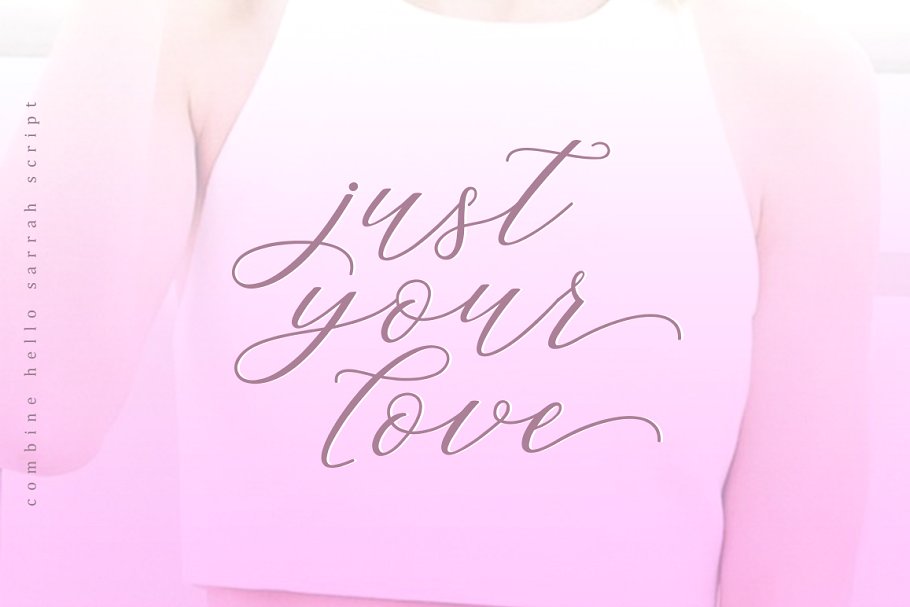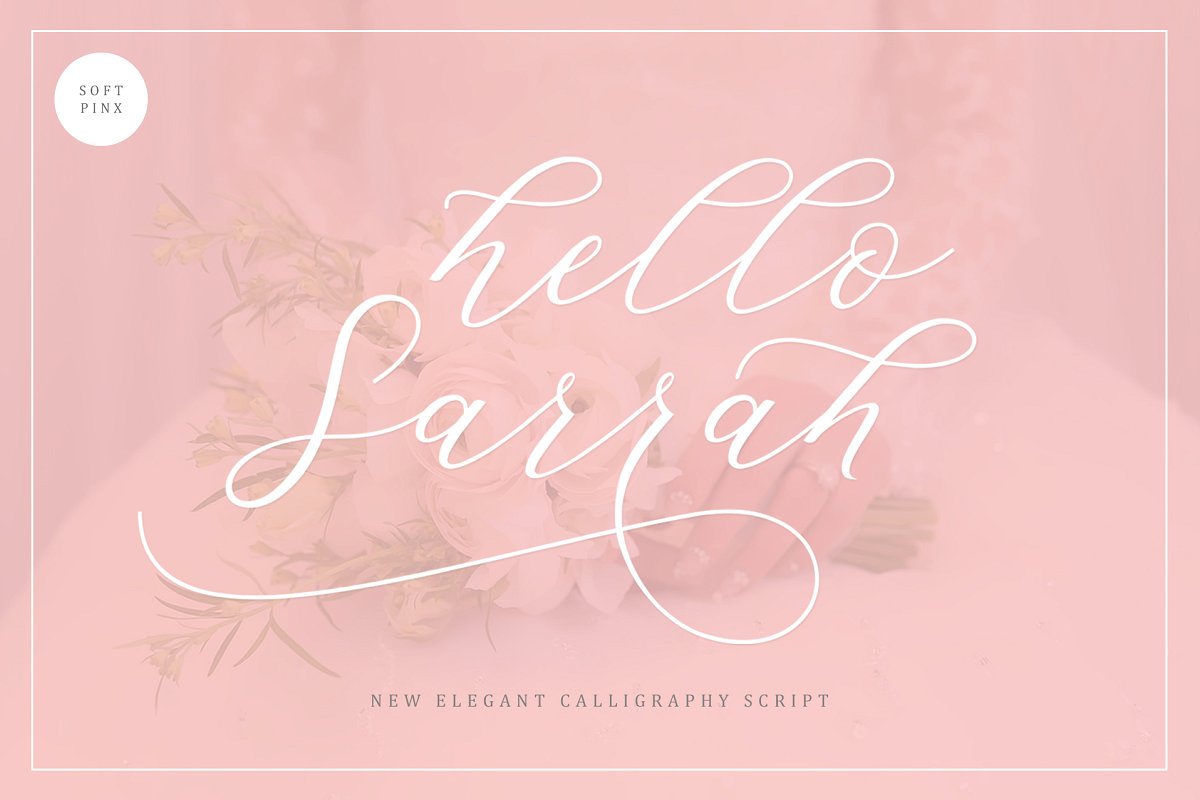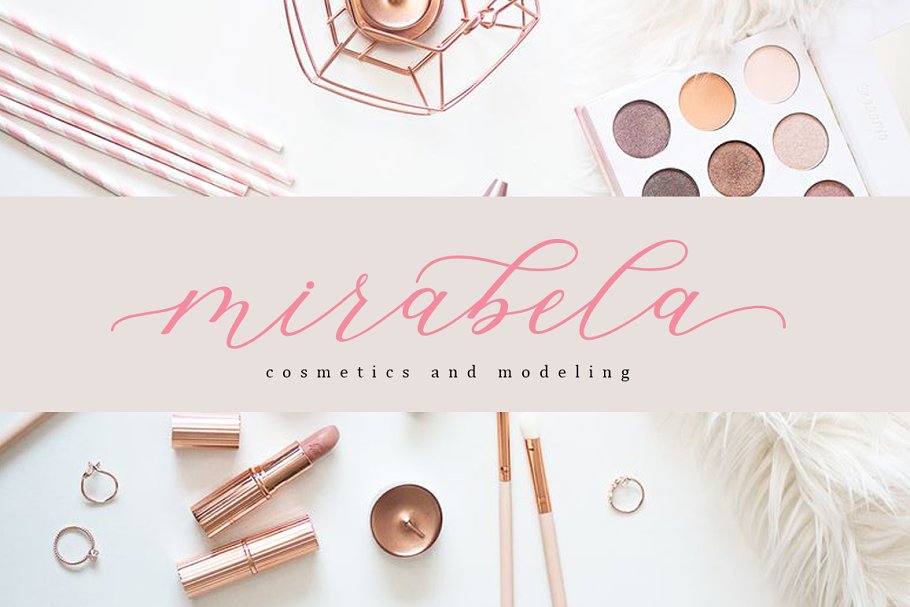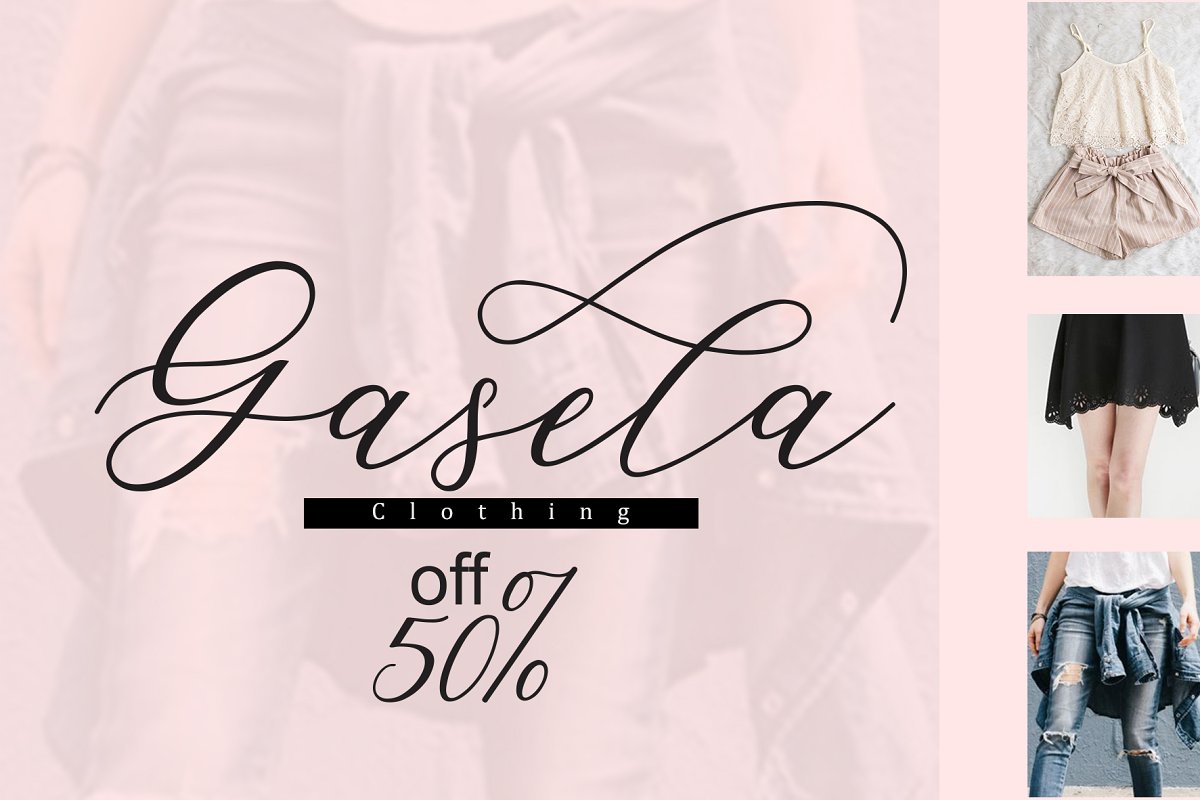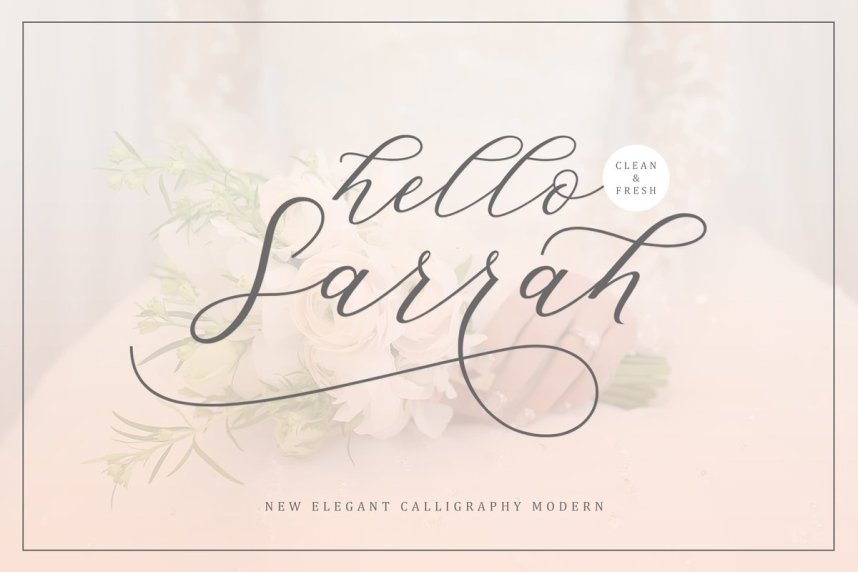
Hello Sarrah Script Font
Thank you for looking 🙂 Introducing the new elegant calligraphy modern, Hello Sarrah Font! Hello Sarrah is modern feminine font, every single letters have been carefully crafted to make your text looks beautiful. With modern script style this font will perfect for many different project ex: photography, watermark, quotes, blog header, poster, wedding, branding, logo, fashion, apparel, letter, invitation, stationery, etc.